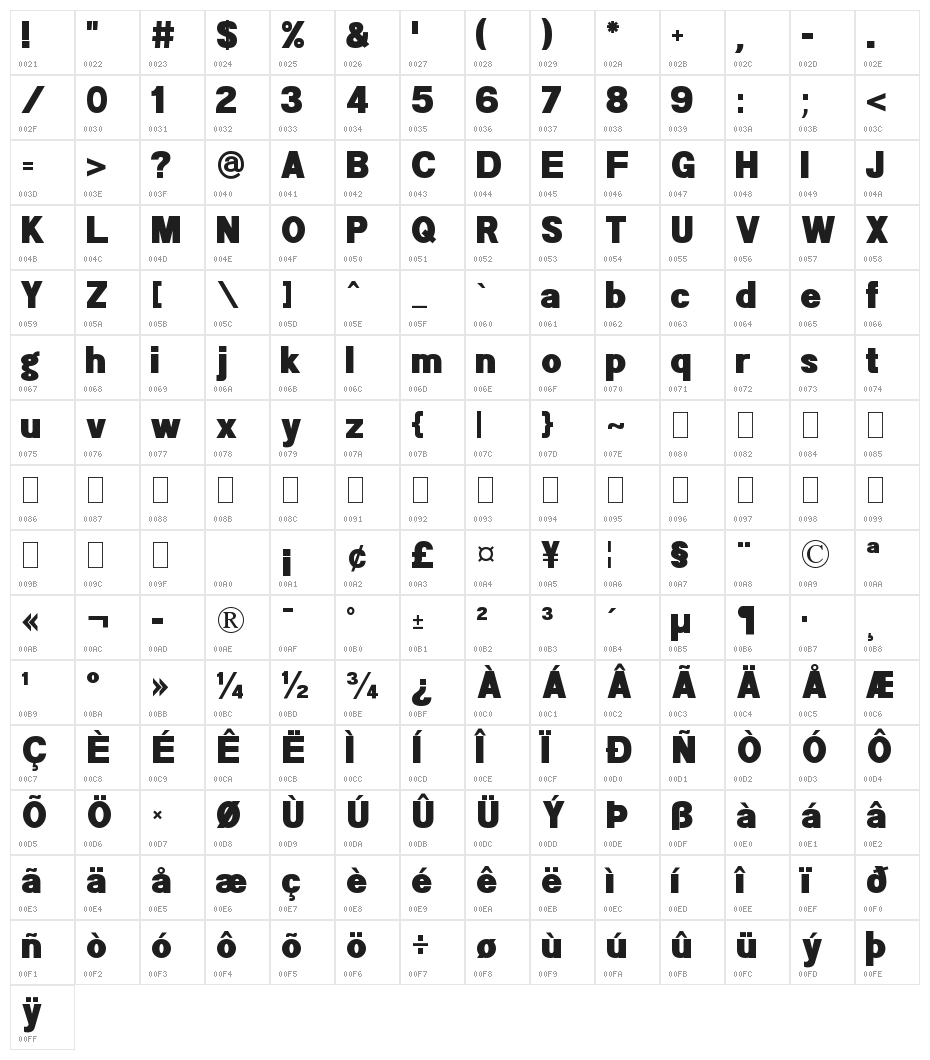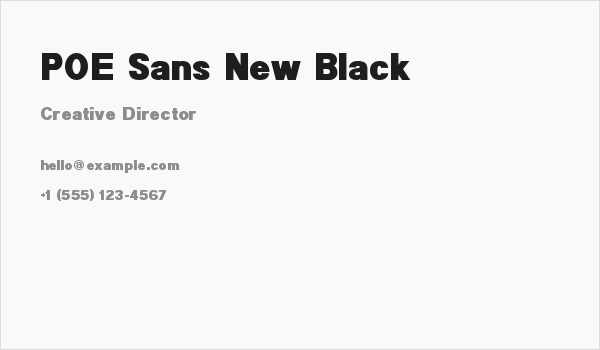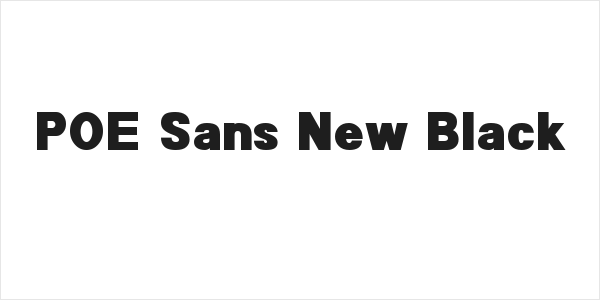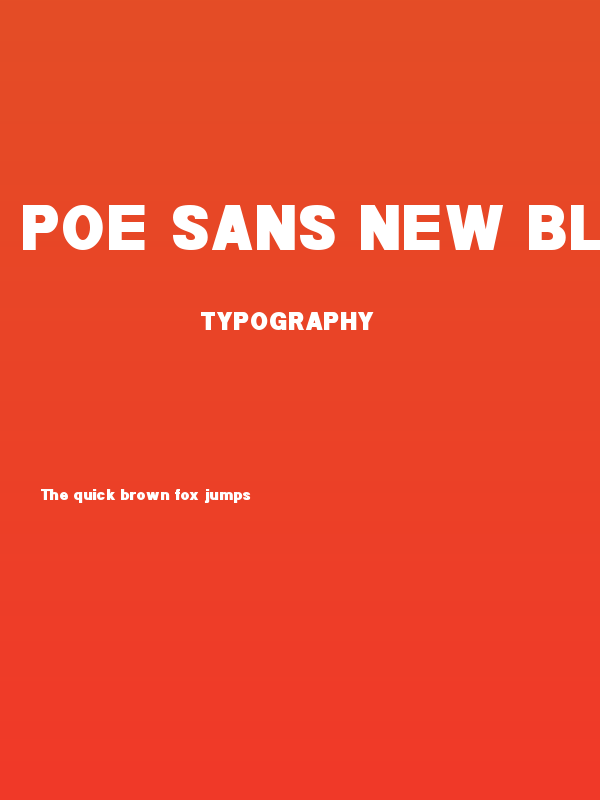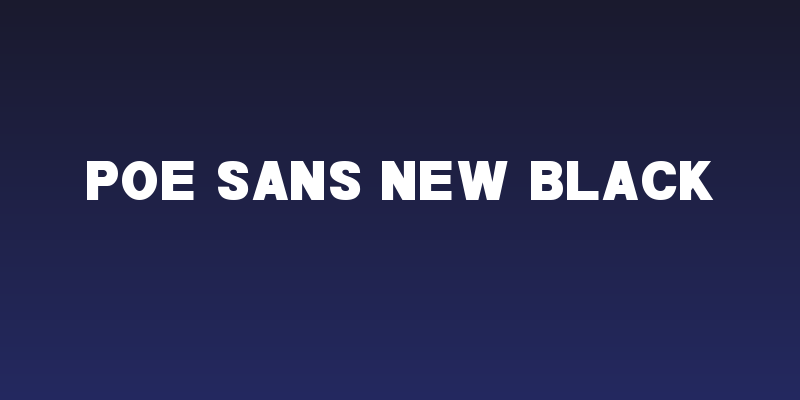
POE Sans New Black Font
POE Sans New Black Description
This font is a bold, sans-serif typeface characterized by its strong and impactful appearance. The letters are uniformly thick, providing a sense of stability and confidence. The uppercase and lowercase letters maintain a consistent style, with rounded edges that soften the overall look. The numerals are clear and easily distinguishable, making them suitable for various applications. The special characters are well-integrated, ensuring versatility in design projects. This font's boldness makes it ideal for grabbing attention while maintaining readability.
| Proposed Projects | Ideal for headlines, posters, branding materials, and advertising where a strong visual impact is needed. |